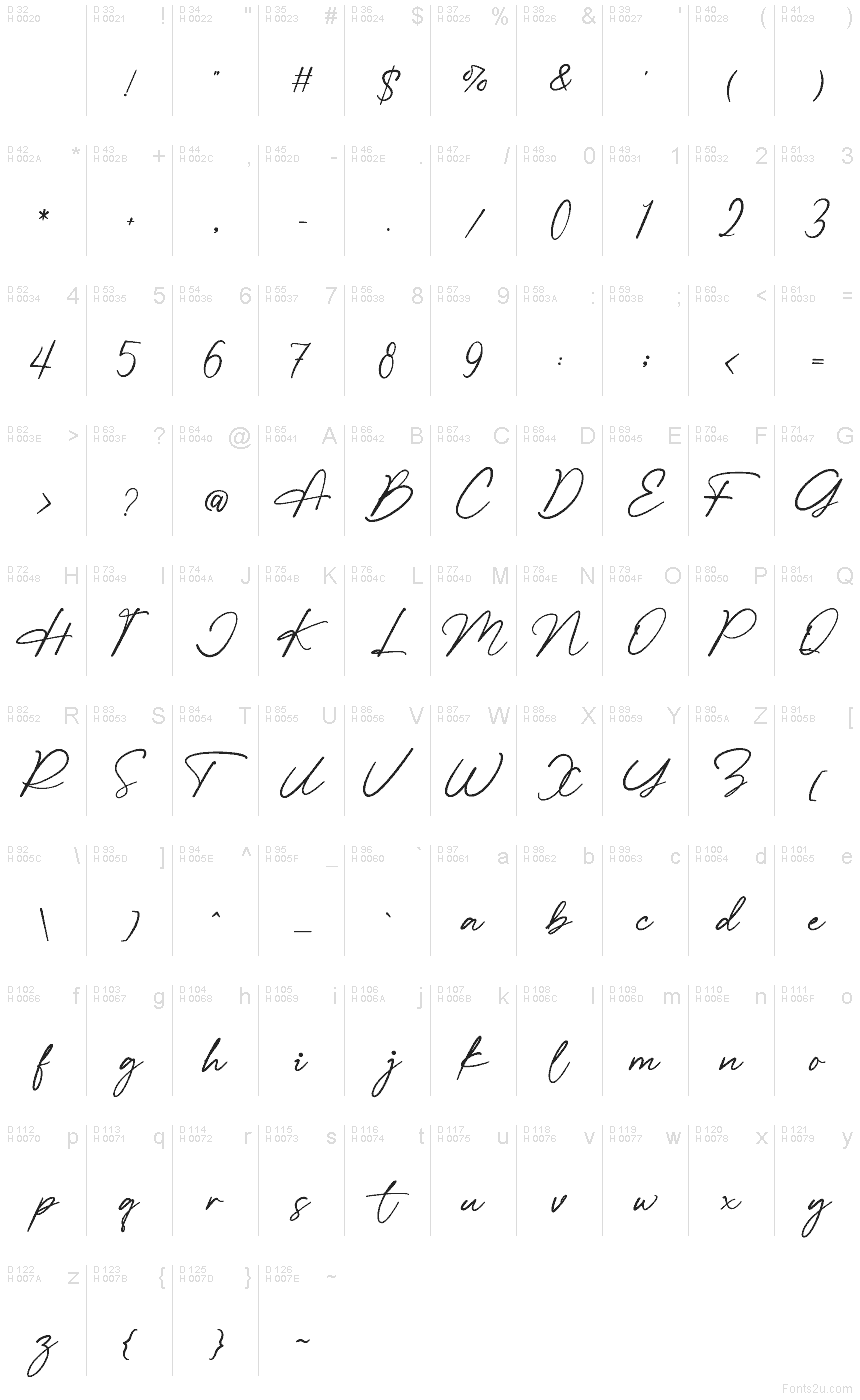
Brilliant Rose
Brilliant Rose font by Muwatta Studio is a light handwritten font with a smooth flow and delicate, elegant style. The modern design of each letter takes inspiration from natural handwriting and signature writing. All letters have thin lines, gentle curves, and soft rounded edges.